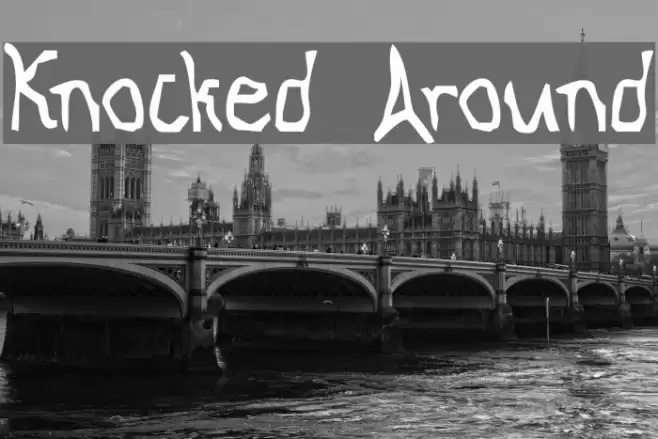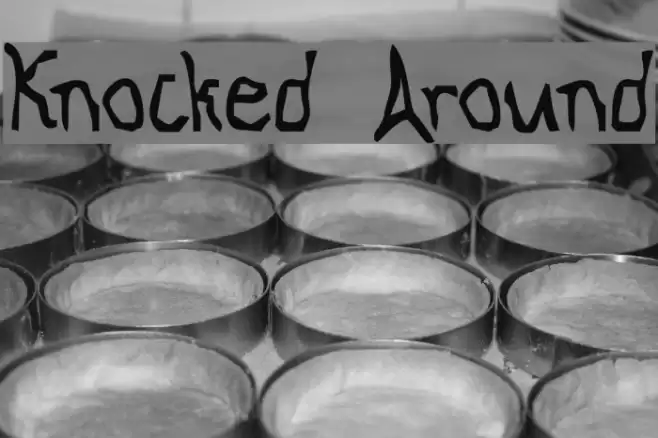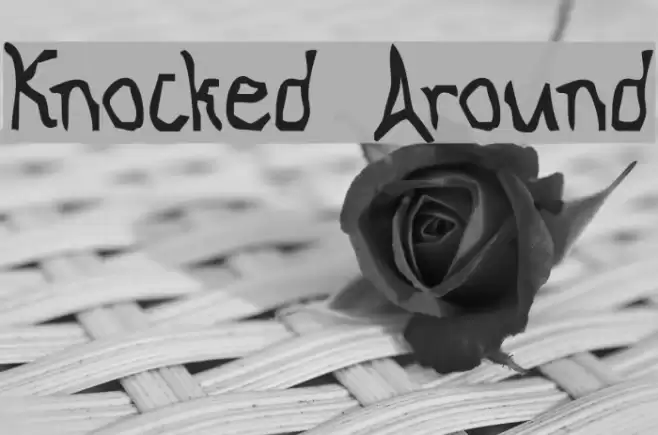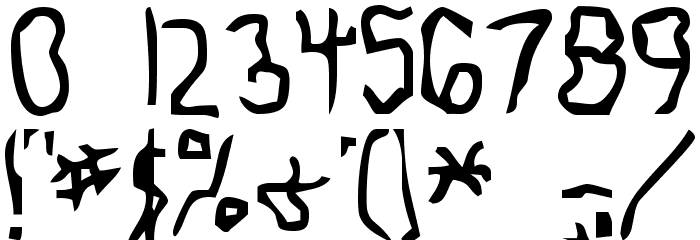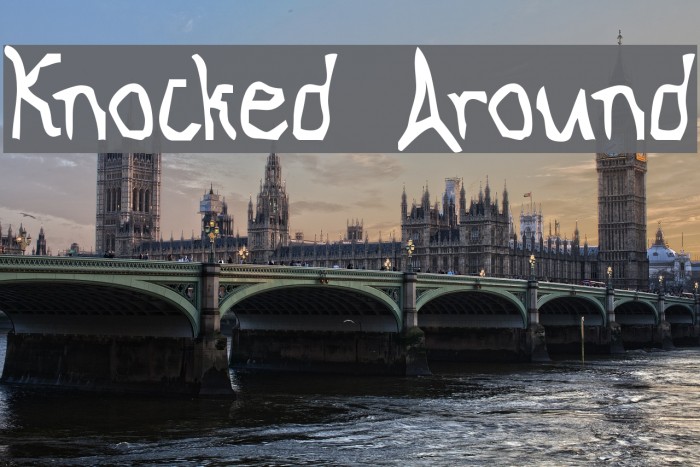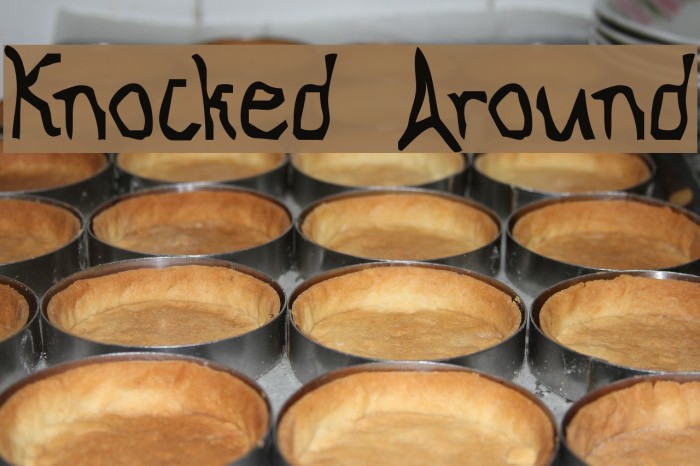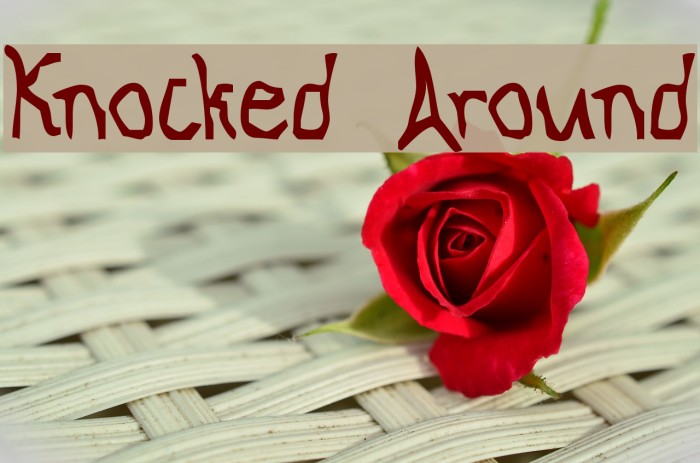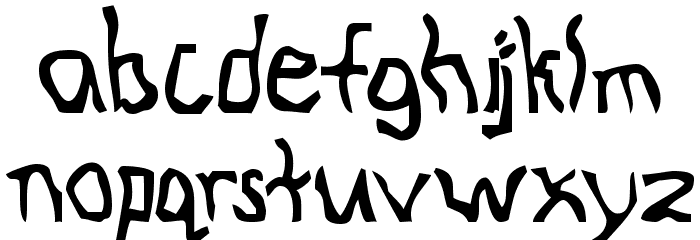
Knocked Around Font
Knocked Around Description
This font exhibits a rugged and hand-drawn aesthetic, characterized by its uneven and jagged lines. The letters have a playful, almost chaotic appearance, with varying stroke widths that give it a dynamic and energetic feel. The uppercase and lowercase letters maintain a consistent style, with a quirky and irregular form that suggests a sense of movement. The numbers and special characters follow the same design principles, adding to the font's overall cohesive yet unconventional look. This font is ideal for projects that require a bold and distinctive visual impact, making it suitable for creative and artistic applications.
A rugged, hand-drawn font with uneven, jagged lines and a playful, chaotic style from Distorted Eroded fonts.
- Proposed Projects: Perfect for artistic projects, posters, album covers, and any design needing a bold, unconventional look.